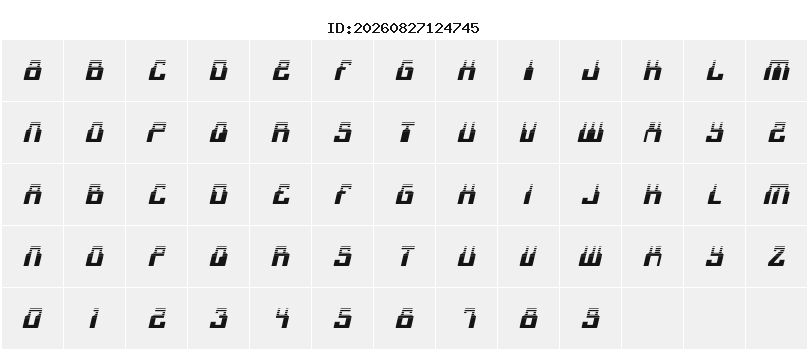
1968 Odyssey Halftone Italic Preview
• Font Name: 1968 Odyssey Halftone Italic
• Full Font Name: 1968 Odyssey Halftone Italic
About 1968 Odyssey Halftone Italic.ttf
1968 Odyssey Halftone Italic.ttf is a modern, elegant sans-serif font designed for ultimate readability and visual harmony. Perfect for branding, headlines, web design, and print materials.